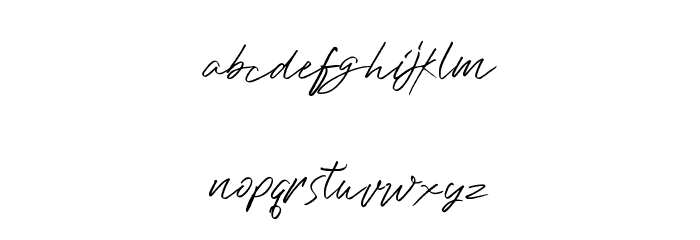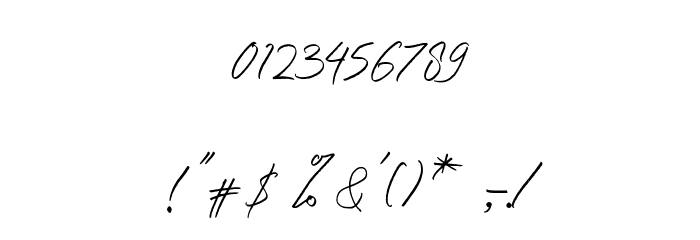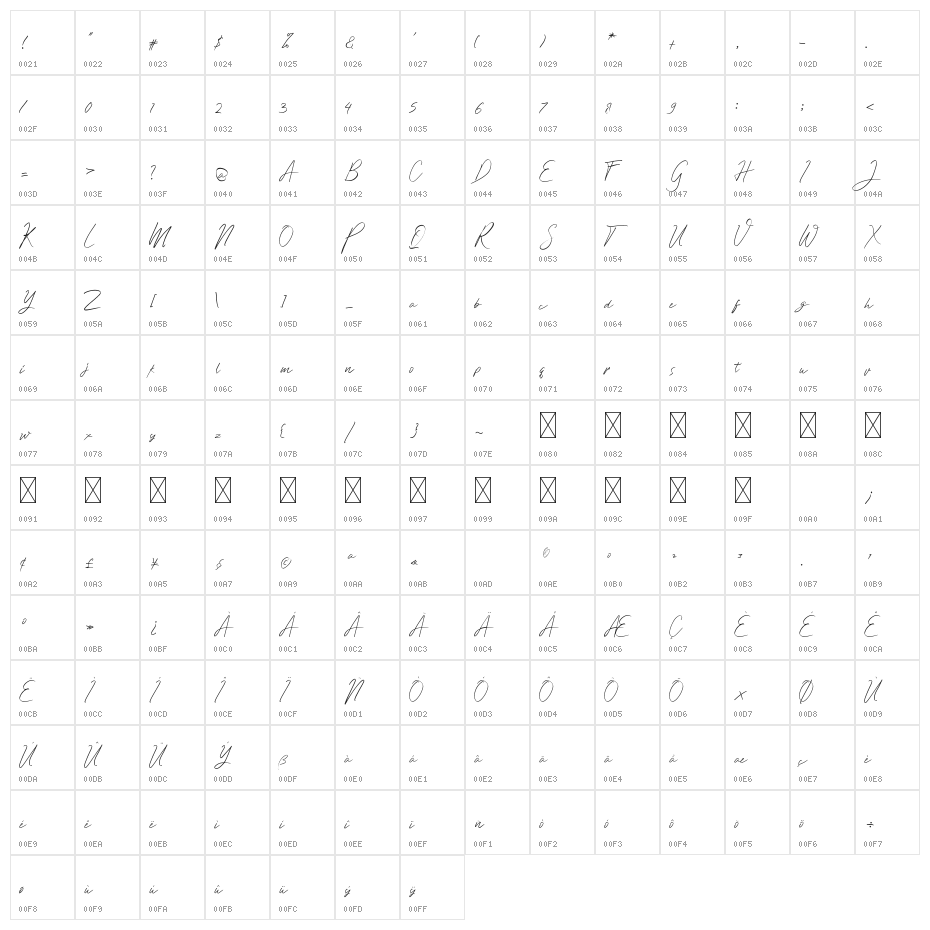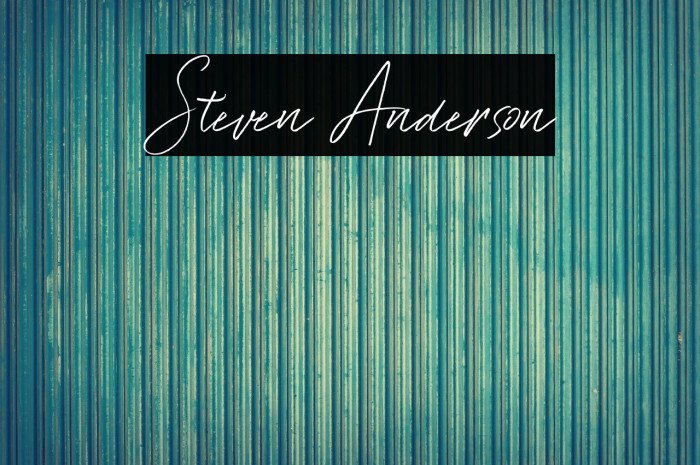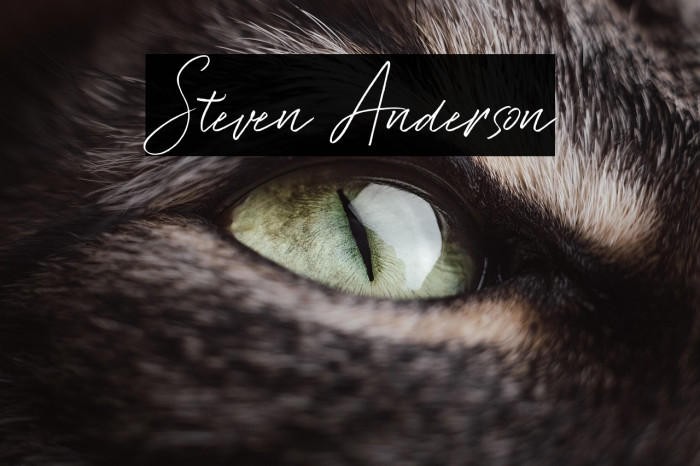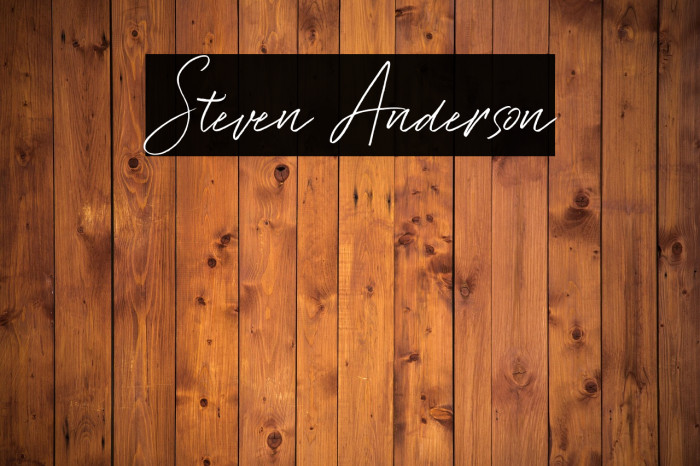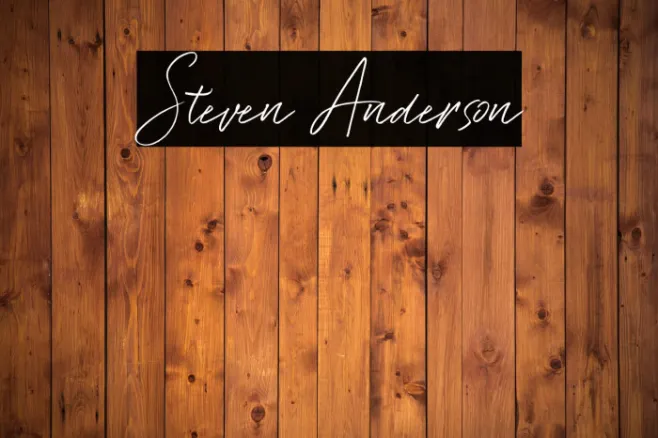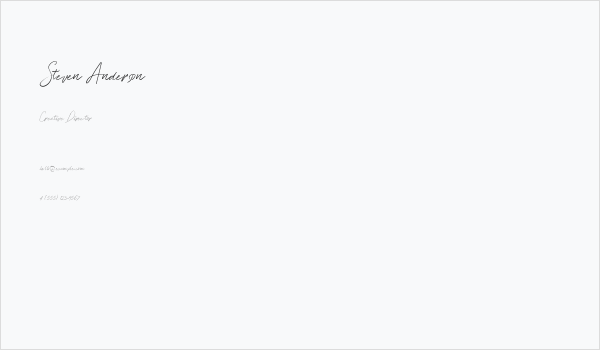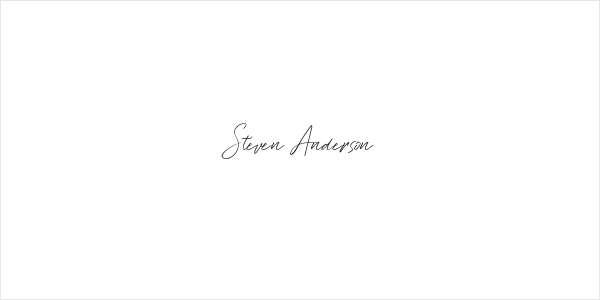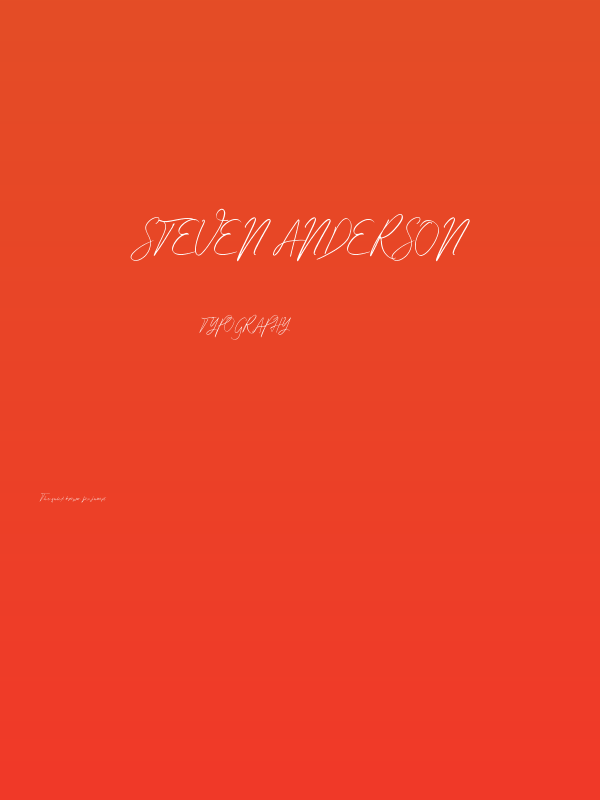
Steven Anderson Font
This elegant script font exudes a sense of fluidity and sophistication, characterized by its graceful, flowing lines and delicate curves. The uppercase letters are tall and slightly slanted, with a refined, calligraphic touch that adds a sense of movement and dynamism. The lowercase letters maintain a consistent style, with smooth connections and a natural, handwritten appearance. The numerals are distinct and stylish, complementing the overall aesthetic with their slender forms. Special characters are thoughtfully designed to match the font's elegant style, making it versatile for various applications. The font's overall impression is one of elegance and refinement, suitable for projects that require a touch of class and sophistication.
An elegant script font with flowing, calligraphic lines and a sophisticated style.
- Proposed Projects: Ideal for wedding invitations, elegant branding, personal stationery, and upscale packaging.
- Overall Style: Elegant, Sophisticated
- Use Case: Logos, Invitations, Branding